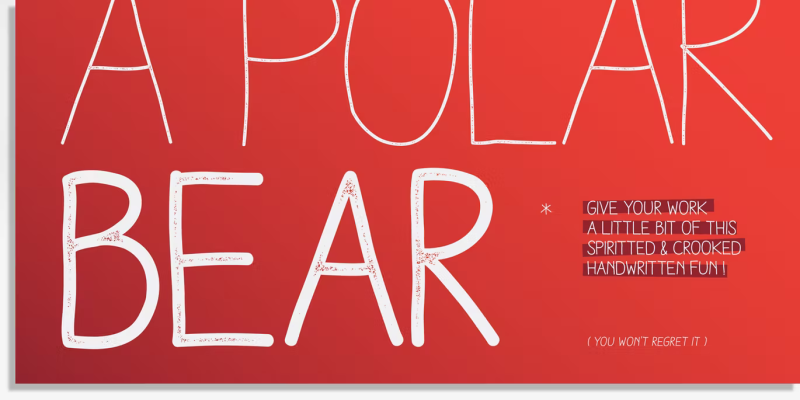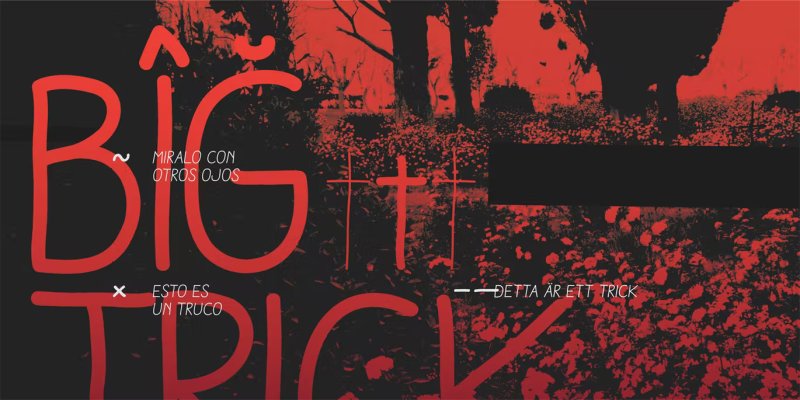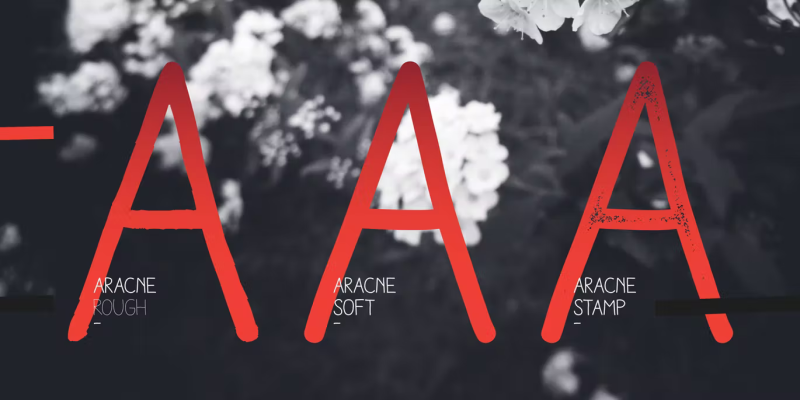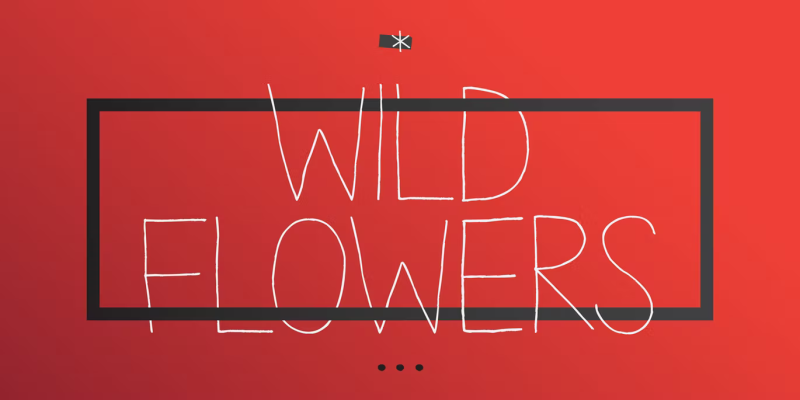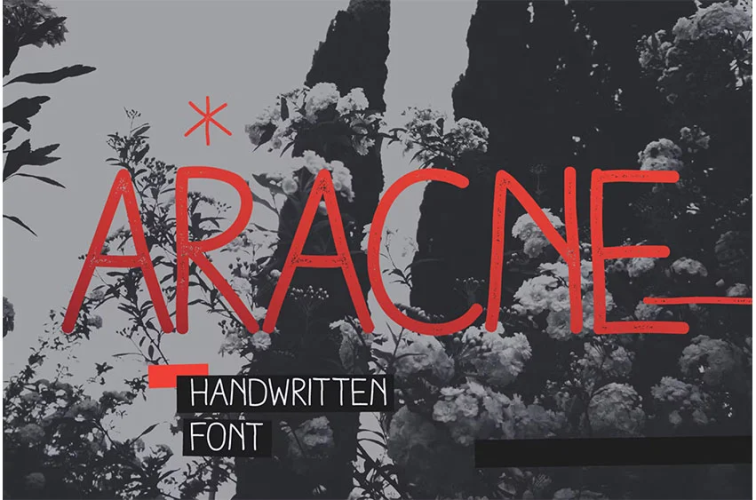
Aracne Font
Aracne Font collection features tall, slightly scrawled letterforms, and is available in regular, condensed, and ultra condensed styles for maximum functionality. With a spirited quality and casual character, it will add a personal style to your work.
Aracne was created as an extended version of the, a regular full of energy handwritten font, with light and regular styles, including italics. It provides a wide range of possibilities, including the Aracne Soft and Stamp, which offer softer and cleaner edges. Its glyph coverage supports languages such as English, Spanish, French, German, Polish, and Czech, among many others. Its recommended usage is for display titles, and a small amount of text, because of its good legibility and quality of glyphs.
Where Aracne Font works best
A short phrase in Aracne Font carries warmth that a typeset sans cannot fake; keep the rest of the card plain.
Chalkboard-style headings in Aracne Font make a menu feel hand-made. Keep the dish descriptions in a simple face so prices stay readable.
One line of Aracne Font over a photo is enough; the script carries the tone and the caption does the work.
What kind of work does Aracne Font suit?
It sits in the Script And Handwritten group and reads as aracne, condensed, display, handwritten. That makes it a candidate wherever those qualities help: headings, packaging, social graphics and brand work. Set it at the size you plan to use before deciding.